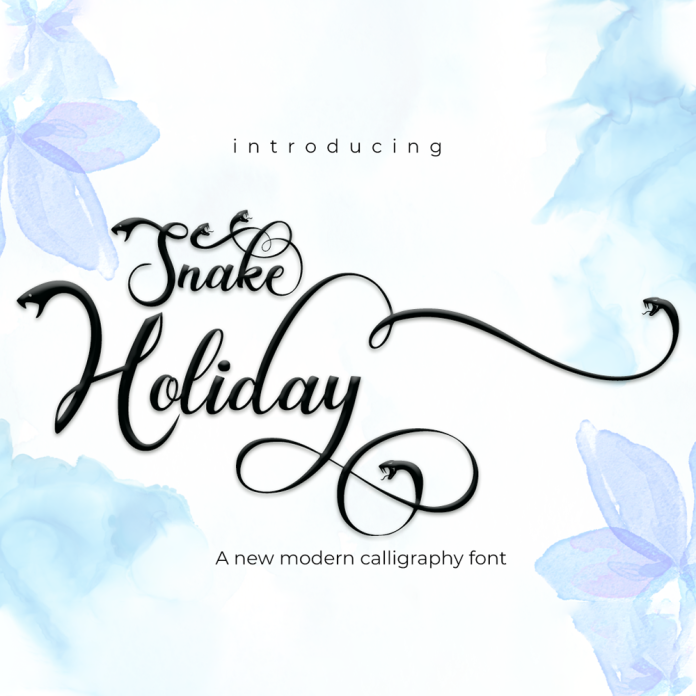
Snake Holiday Script is a modern calligraphy font that includes a Alternate style. This casual and beautiful font features swashes and can be used for various purposes such as logos, product packaging, wedding invitations, branding, headlines, signage, labels, signatures, book covers, posters, quotes, and more.